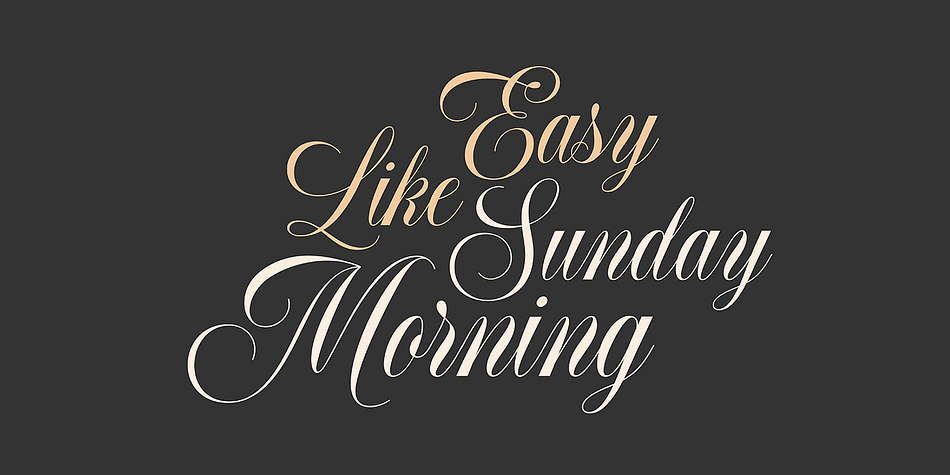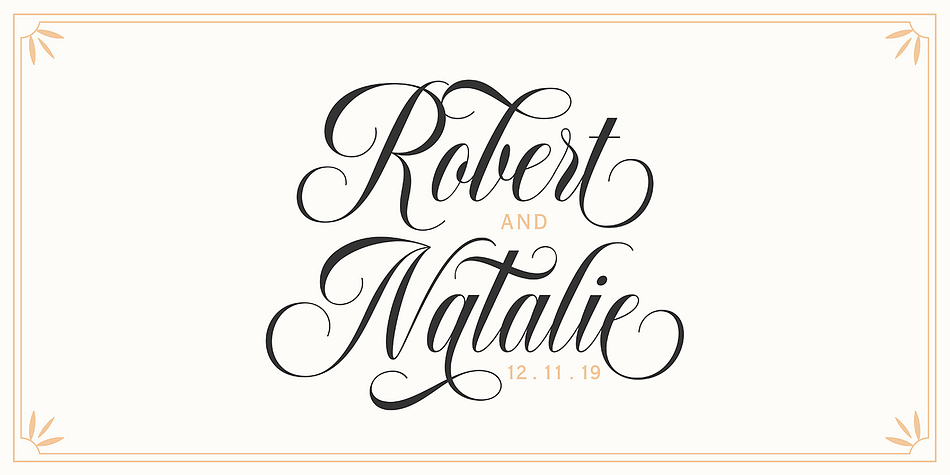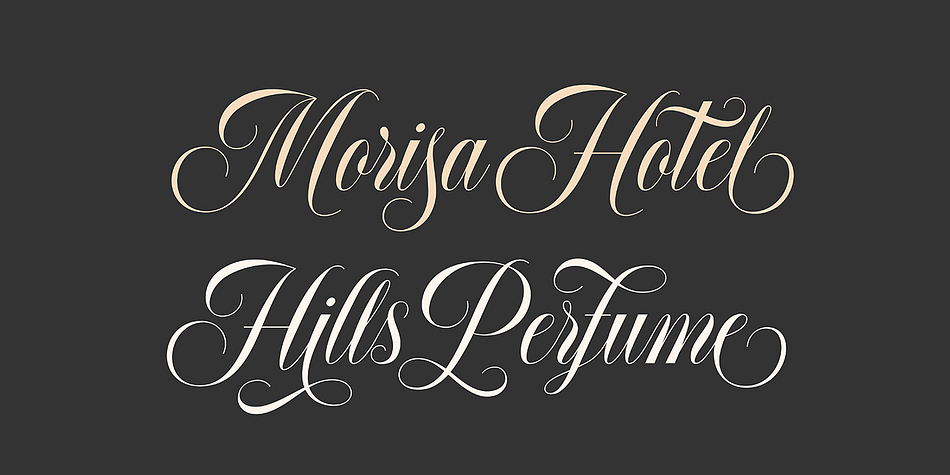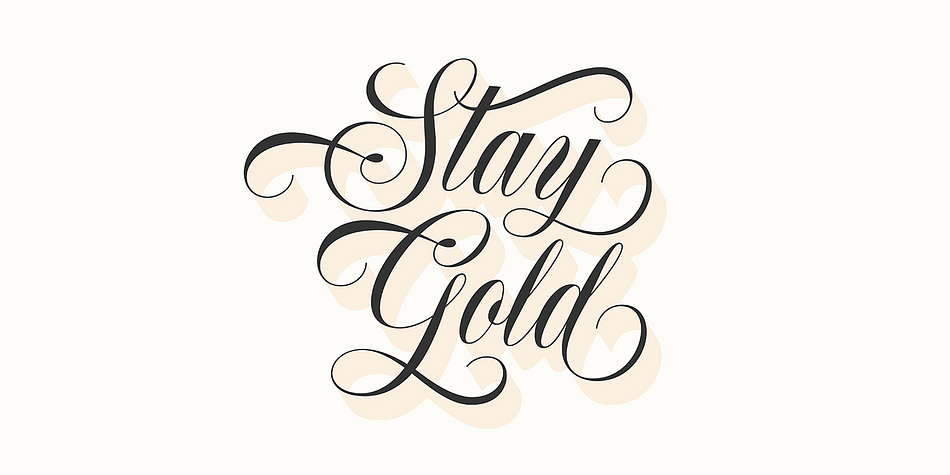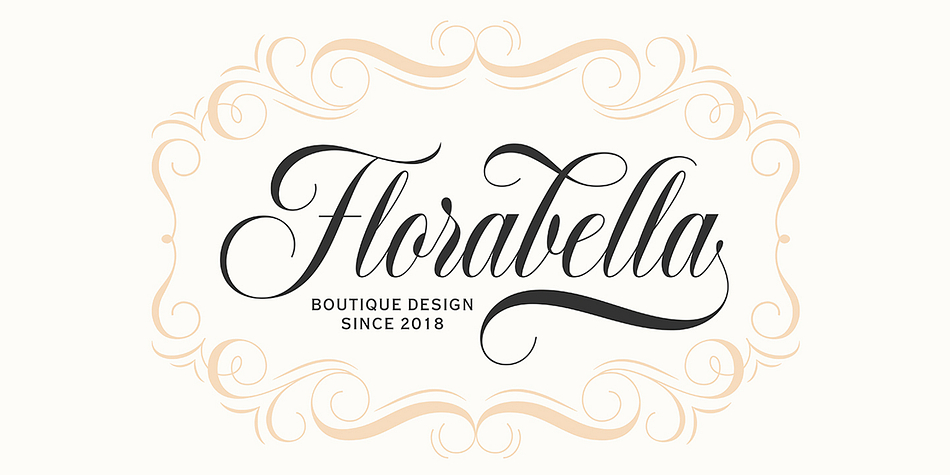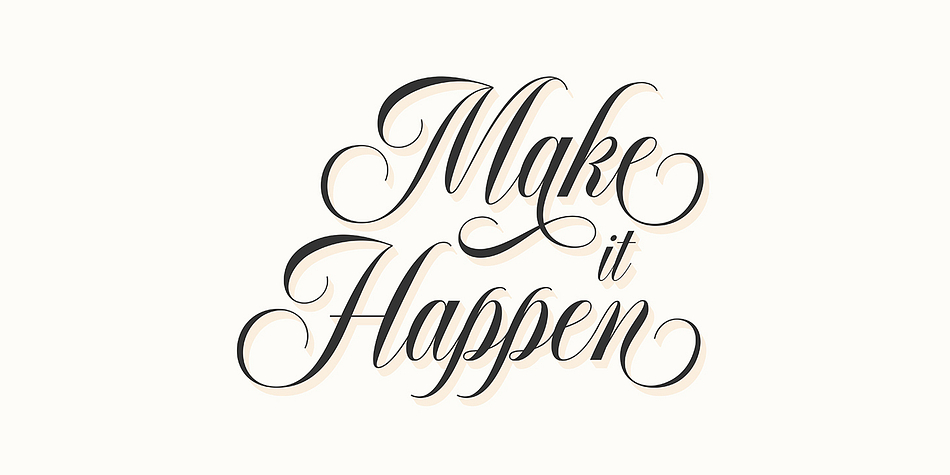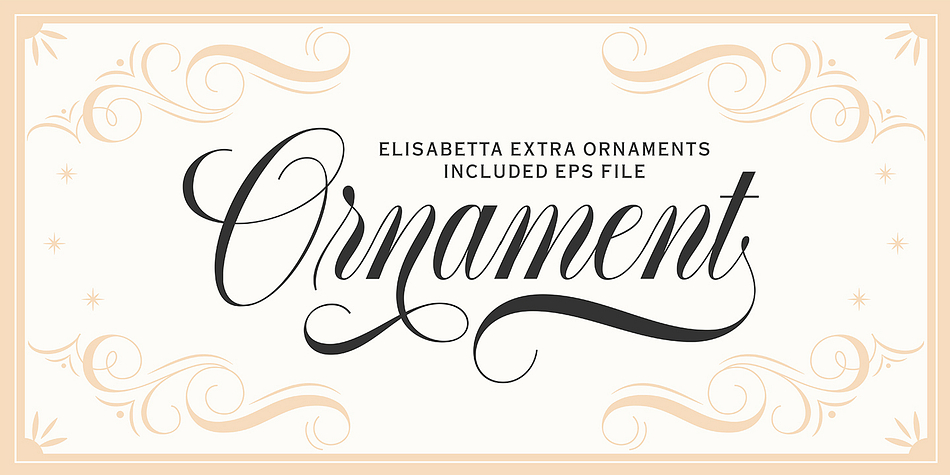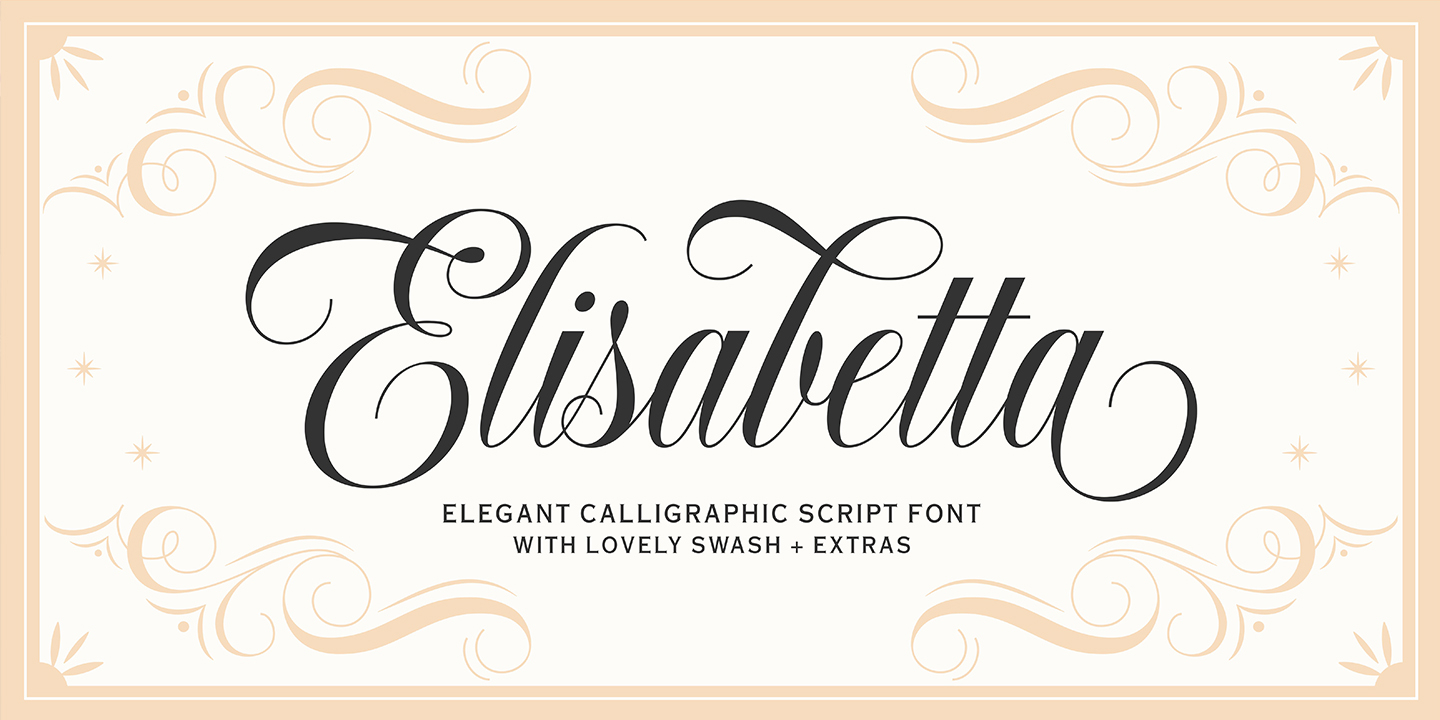
Elisabetta Script is a dingbat and script font family. This typeface has two styles and was published by Seniors Studio.
Elisabetta is a calligraphy script font that comes with lovely alternates character. a mixture of from copperplate calligraphy with handlettering style. Designed to convey style elegance. Elisabetta is attractive like a smooth, clean, feminine, sensual, glamorous, simple and highly legible typeface. Its classic style is perfect to be applied in any type of formal pieces such invitations, labels, menus, Logos, fashion, make up, stationery, letterpress, romantic novels, magazines, books, greeting / wedding cards, packaging, labels.
Elisabetta features 340+ glyphs and 160 alternative characters. including multiple language support. With OpenType features with stylistic alternates, ligatures and swash characters, that allows you to mix and match pairs of letters to fit your design, and also a touch of ornament makes this font look elegant.